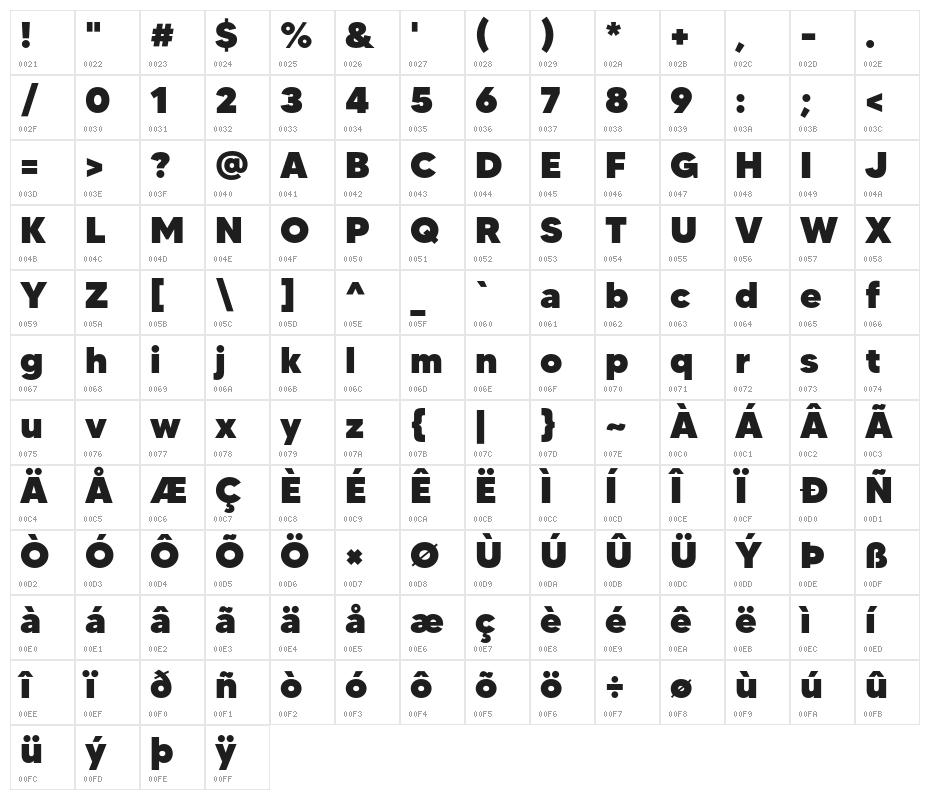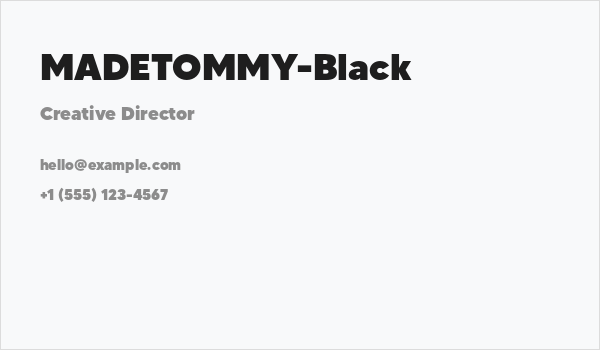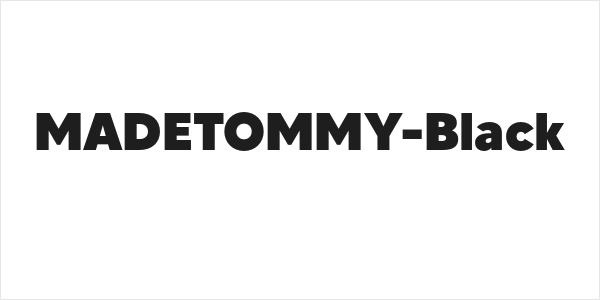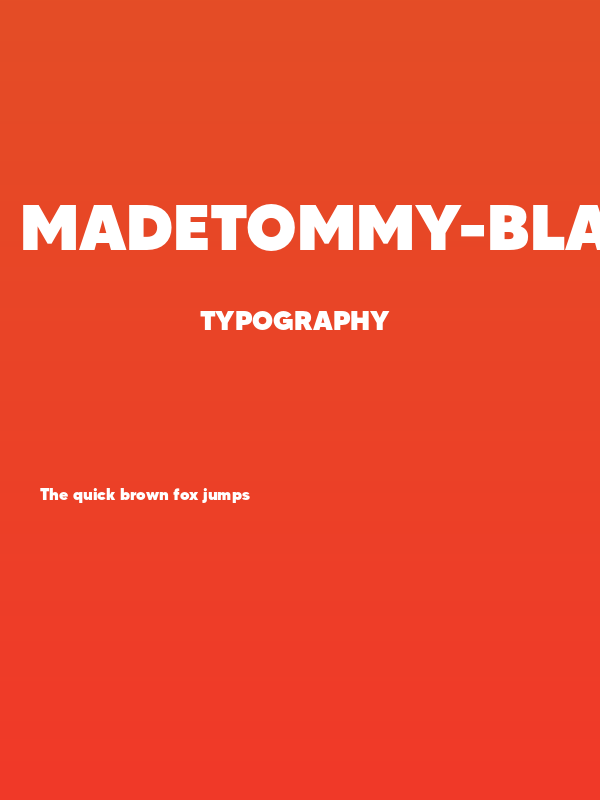
MADETOMMY-Black Font
MADETOMMY-Black Description
This font is a bold, sans-serif typeface characterized by its strong, geometric shapes and clean lines. The uppercase and lowercase letters are well-proportioned, with a consistent stroke width that gives the font a uniform appearance. The numerals are equally bold, maintaining the same visual weight as the letters. Special characters are designed with the same attention to detail, ensuring they blend seamlessly with the rest of the character set. The overall design is modern and impactful, making it suitable for a variety of applications where clarity and presence are essential.
| Proposed Projects | Ideal for branding, advertising, headlines, and signage where a strong visual impact is needed. |